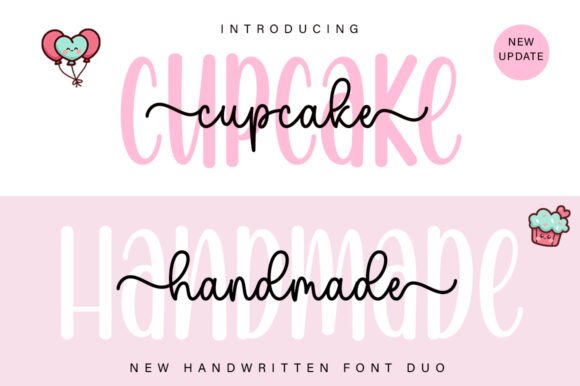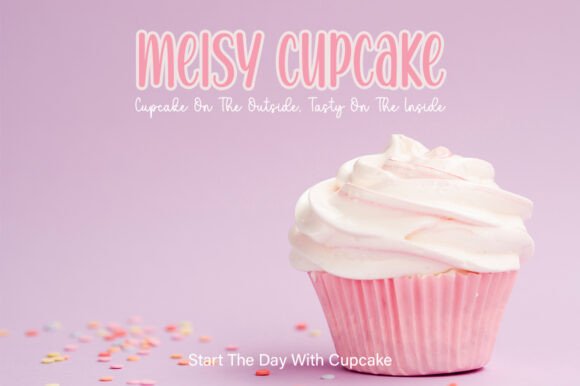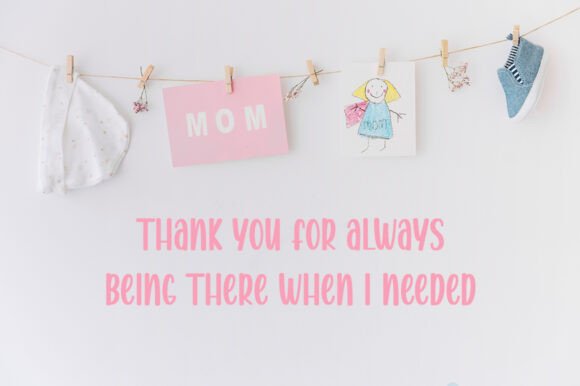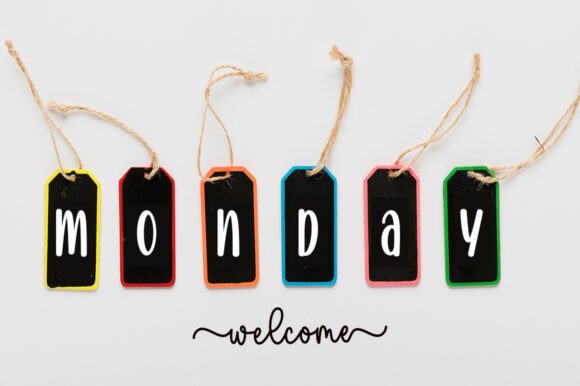
Cupcake Handmade Duo Font
About the Cupcake Handmade Duo Font
Elevate your designs with Cupcake Handmade Duo Font, a font that combines sophistication with readability. Cupcake Handmade Duo is a stylish and delicate duo font (sans serif and script) suitable for a wide spectrum of applications. From greeting cards to headlines, this font will guarantee a romantic touch to each of your creations! Cupcake Handmade Duo is PUA encoded which means you can access all of the glyphs and ligatures with ease.
This duo font excels in projects requiring a touch of handcrafted charm. It’s ideal for branding applications needing a delicate, feminine feel, such as stationery, wedding invitations, or logos for boutiques and cafes. Headlines and short text blocks also benefit from its stylish script and sans-serif pairing. However, avoid using it for large bodies of text or UI elements; the script’s intricate details become less legible at smaller sizes.
For optimal visual balance, pair the Cupcake Handmade Duo font with a clean sans-serif like Montserrat for a modern contrast or a classic serif like Playfair Display for a more traditional feel. A geometric sans-serif could also create a striking juxtaposition, depending on the desired aesthetic.
The overall personality is undeniably feminine and friendly, conveying a sense of warmth and handmade quality. Its delicate forms suggest care and attention to detail, making it perfect for brands focusing on artisanal products or personalized services.
Cupcake Handmade Duo Font Usage Examples
Cupcake Handmade Duo Font Example